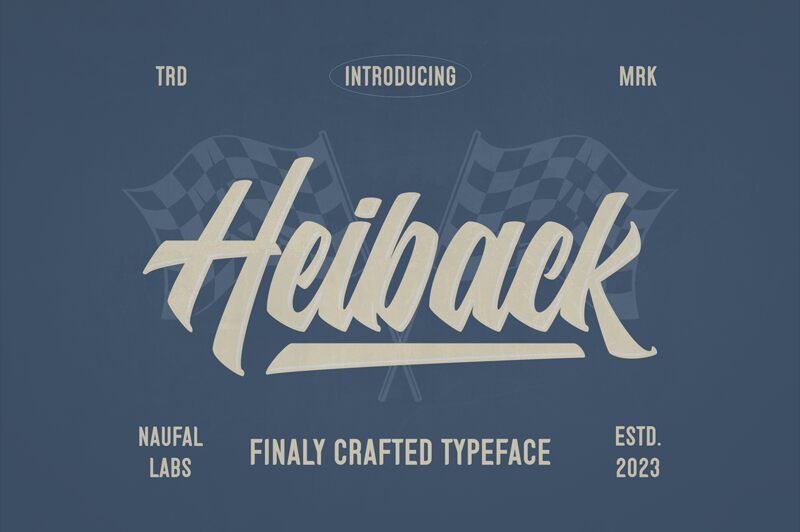
Heiback
Heiback font by Naufal Labs is a sleek, expressive ultra-modern display font with narrow letters suitable for both headline and non-headline use. The free brush font features consistent character heights which gives it an orderly fashionable look. A tight spacing between letters, sharp edges, and clearly visible retro influences all add to its rich character.
Uses cases include blog posts, social media covers, signatures, website headers, event posters/flyers, newspaper/magazine titles (subtitles), cafe/restaurant/bar names and menus. Made to excel on digital platforms but will also work perfectly well on print related projects in which expressiveness relies on typography.
Designed by MOH. MA'IN from Naufal Labs Studio in 2023.